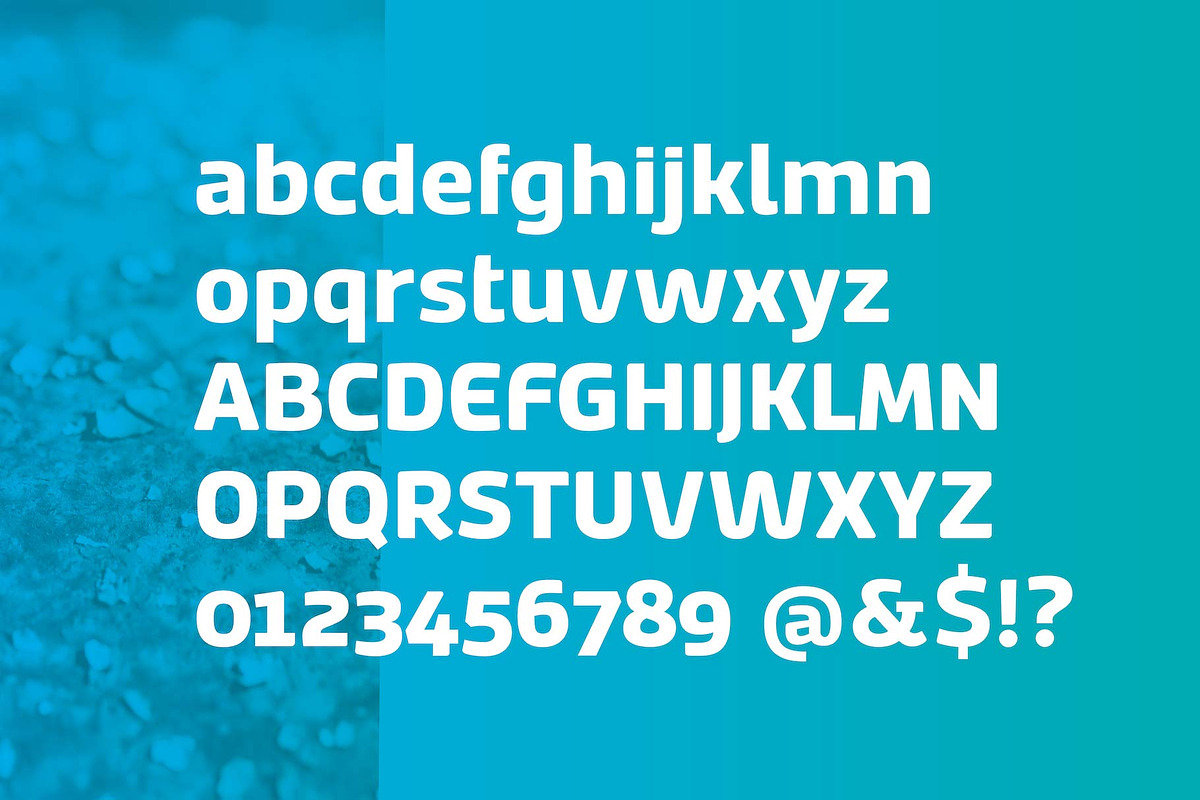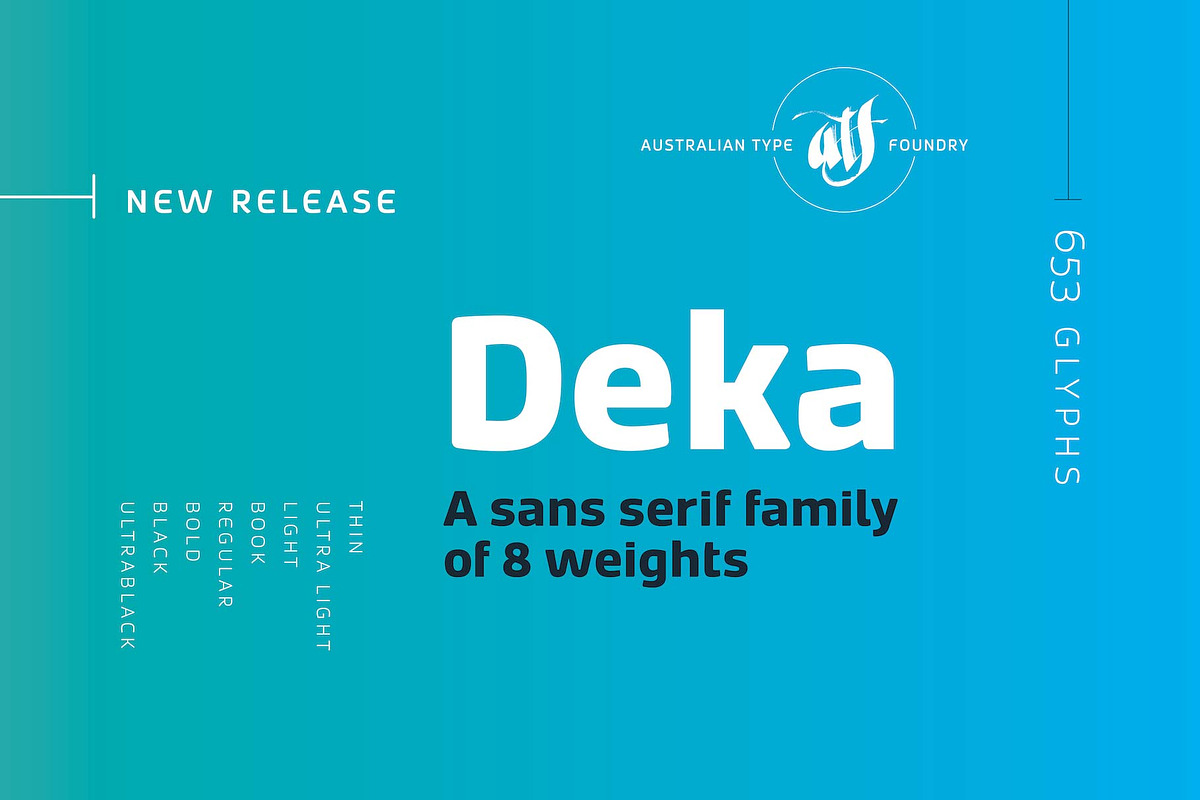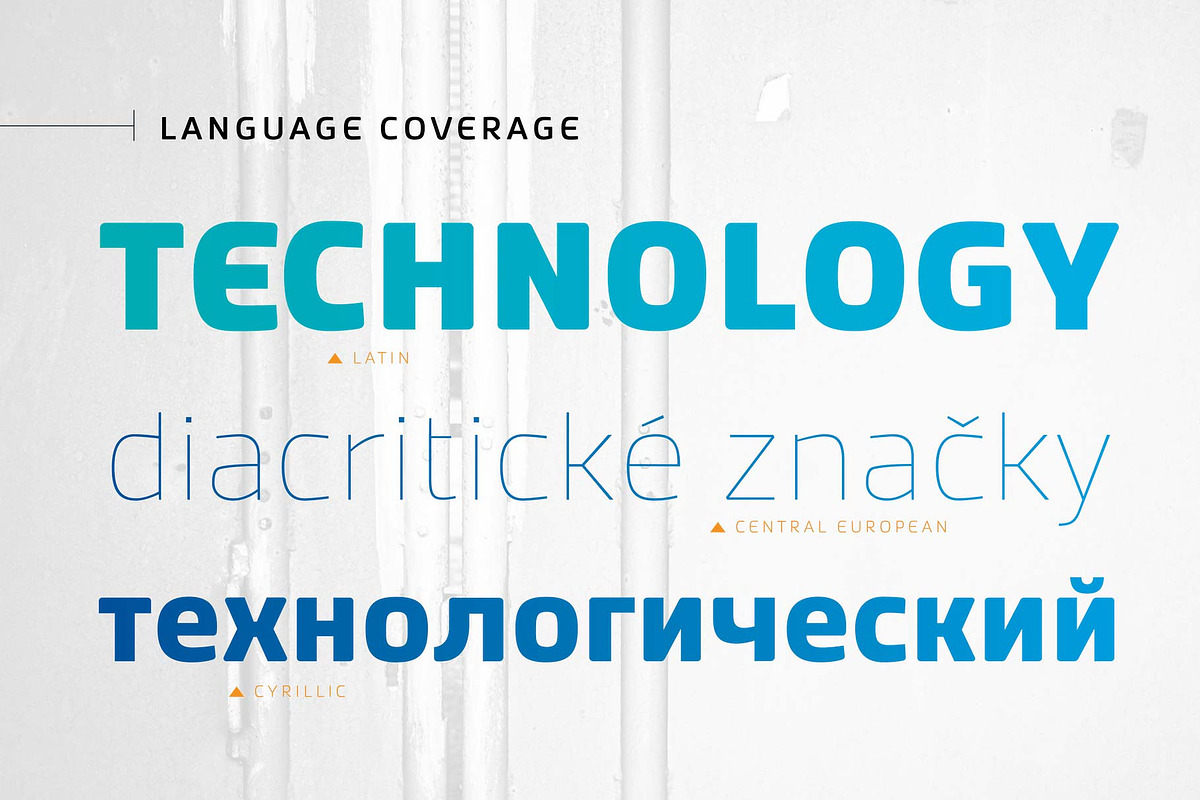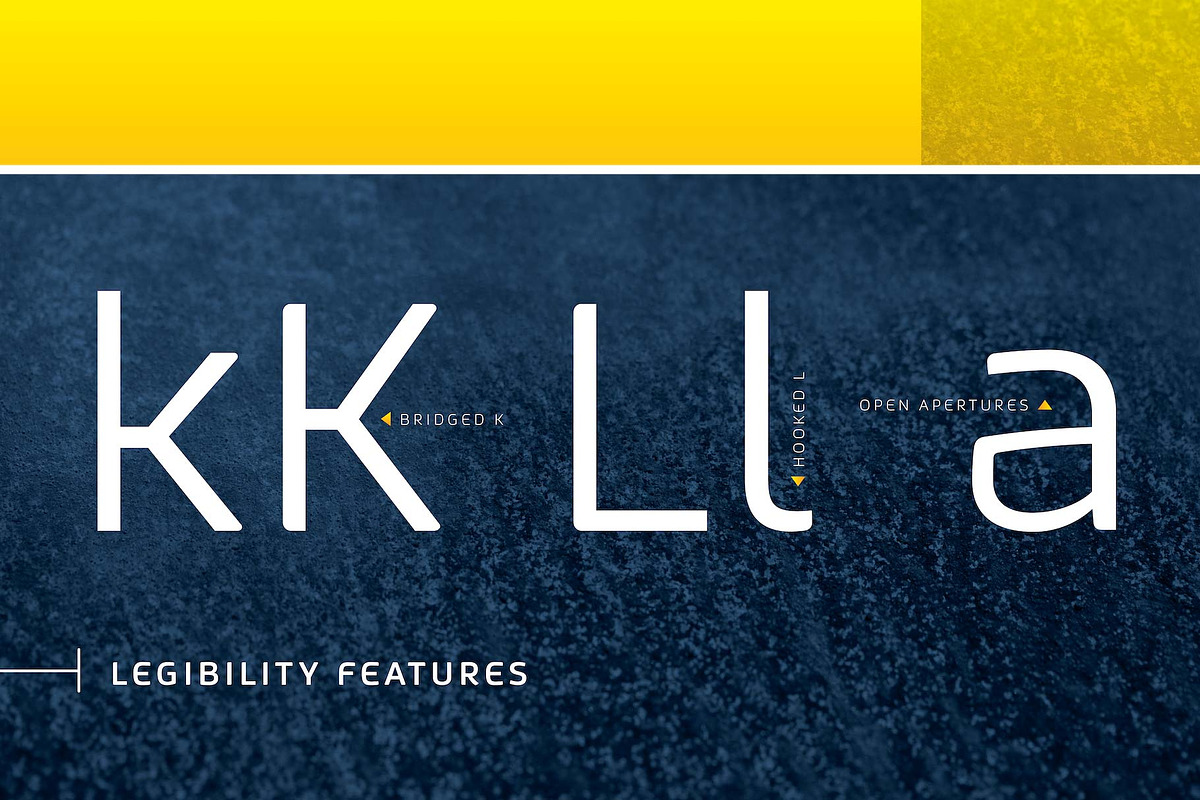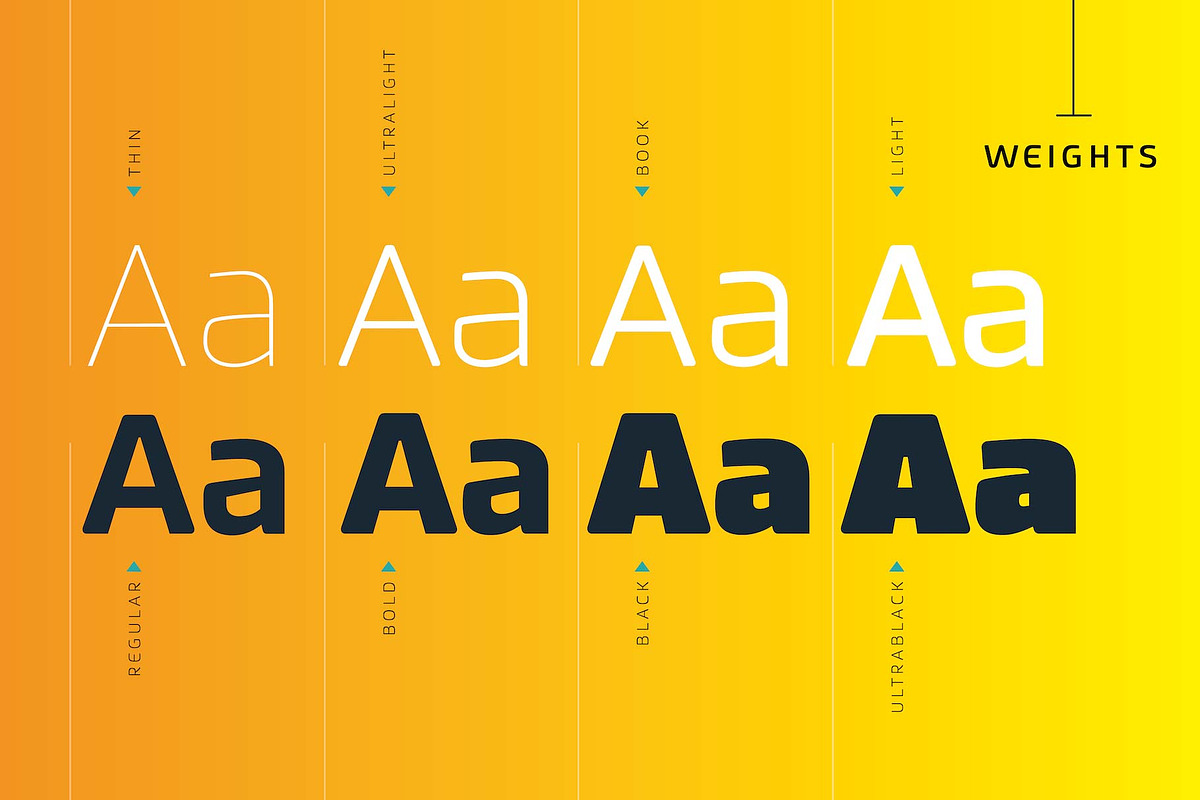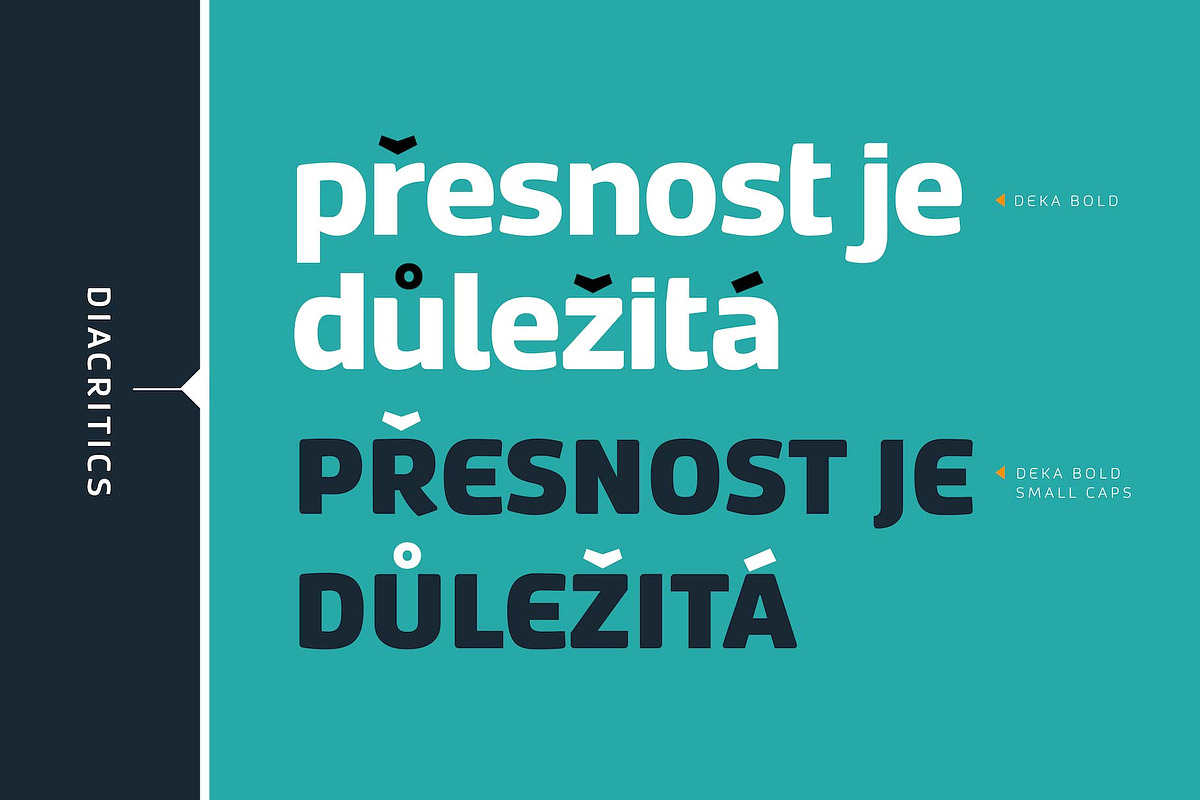
Deka UltraBlack
Deka is a legible sans serif font family suitable for text and display use. European and Cyrillic language coverage, many OpenType features and four sets of numbers for high quality text typography.